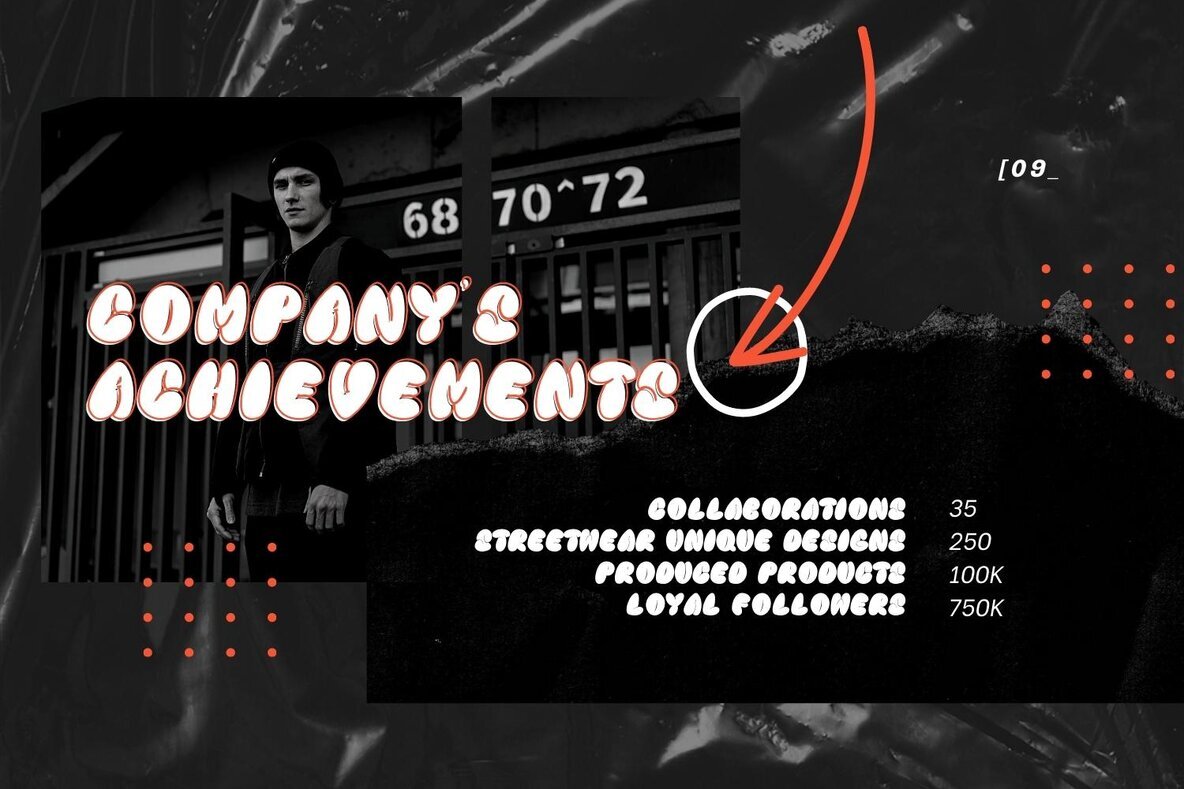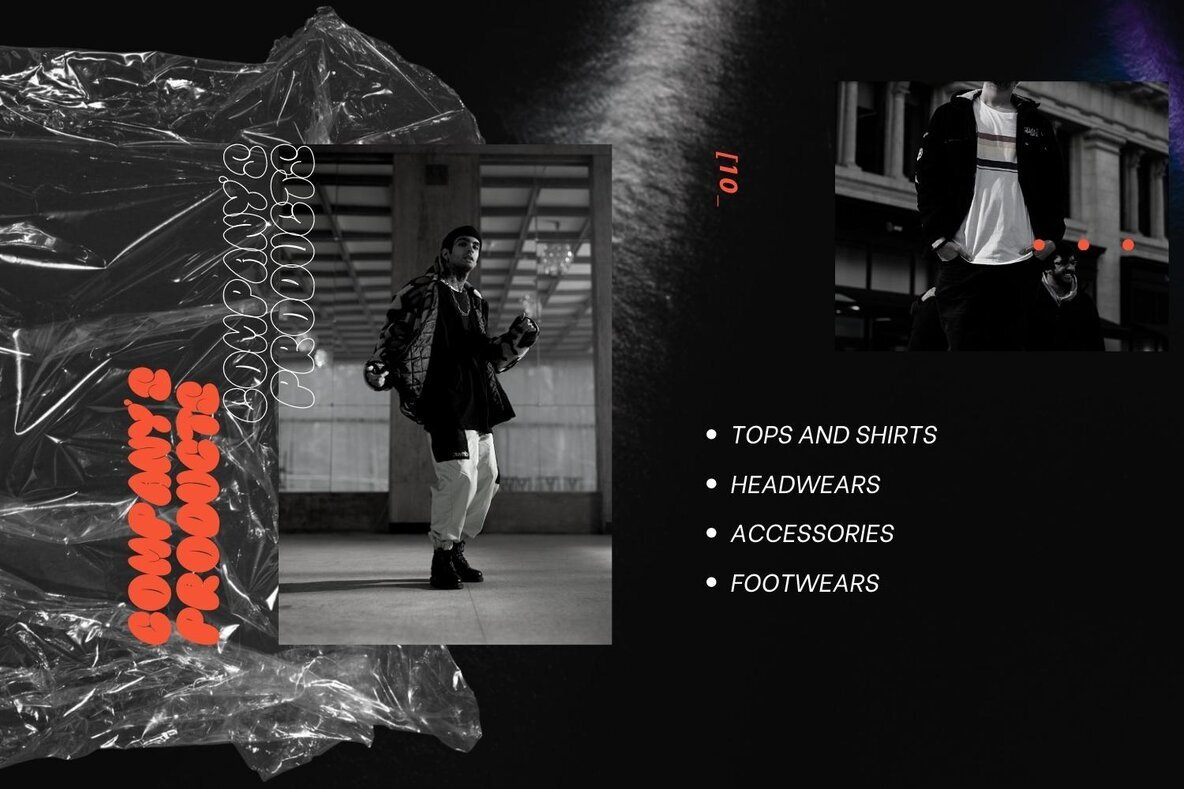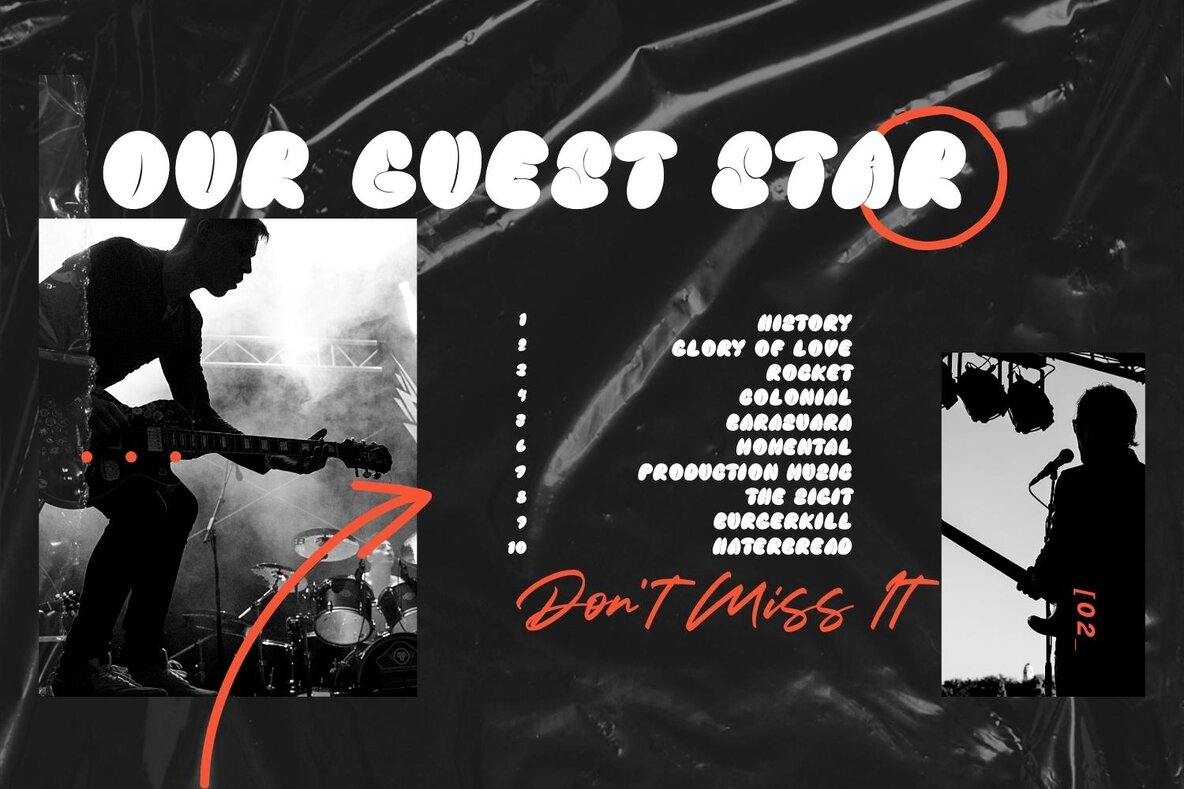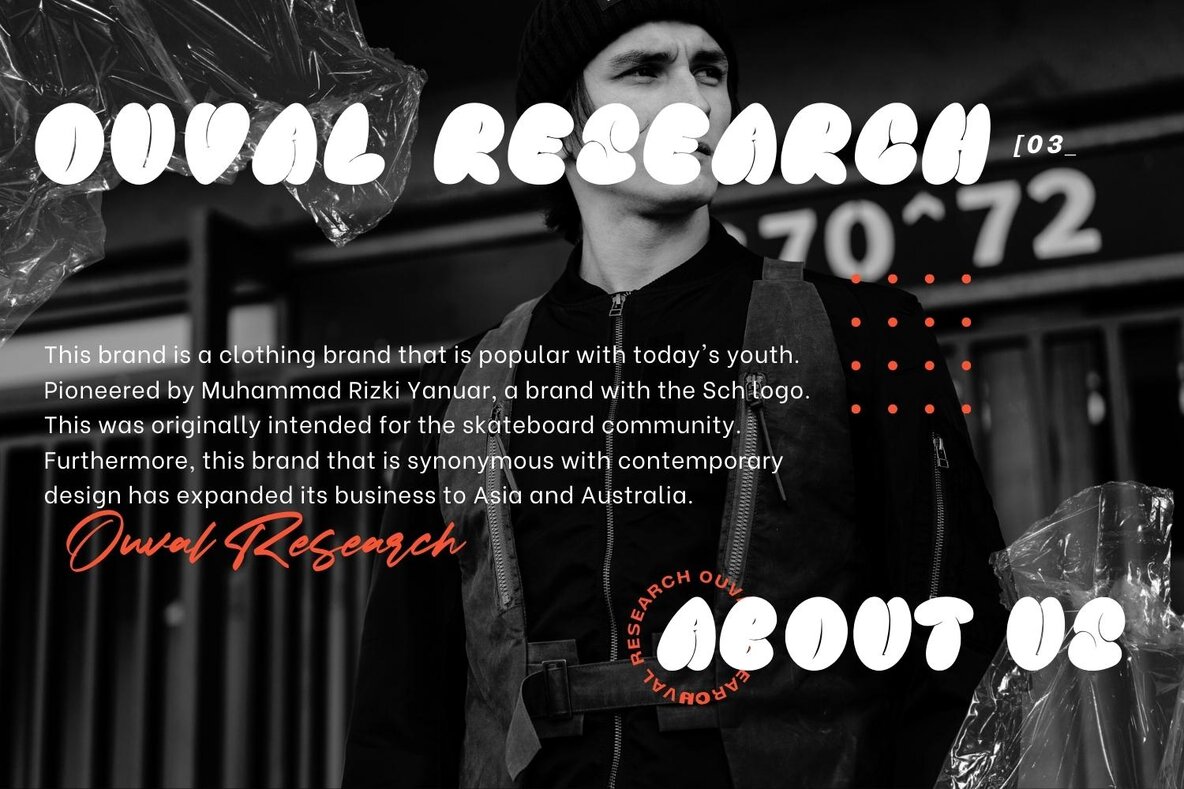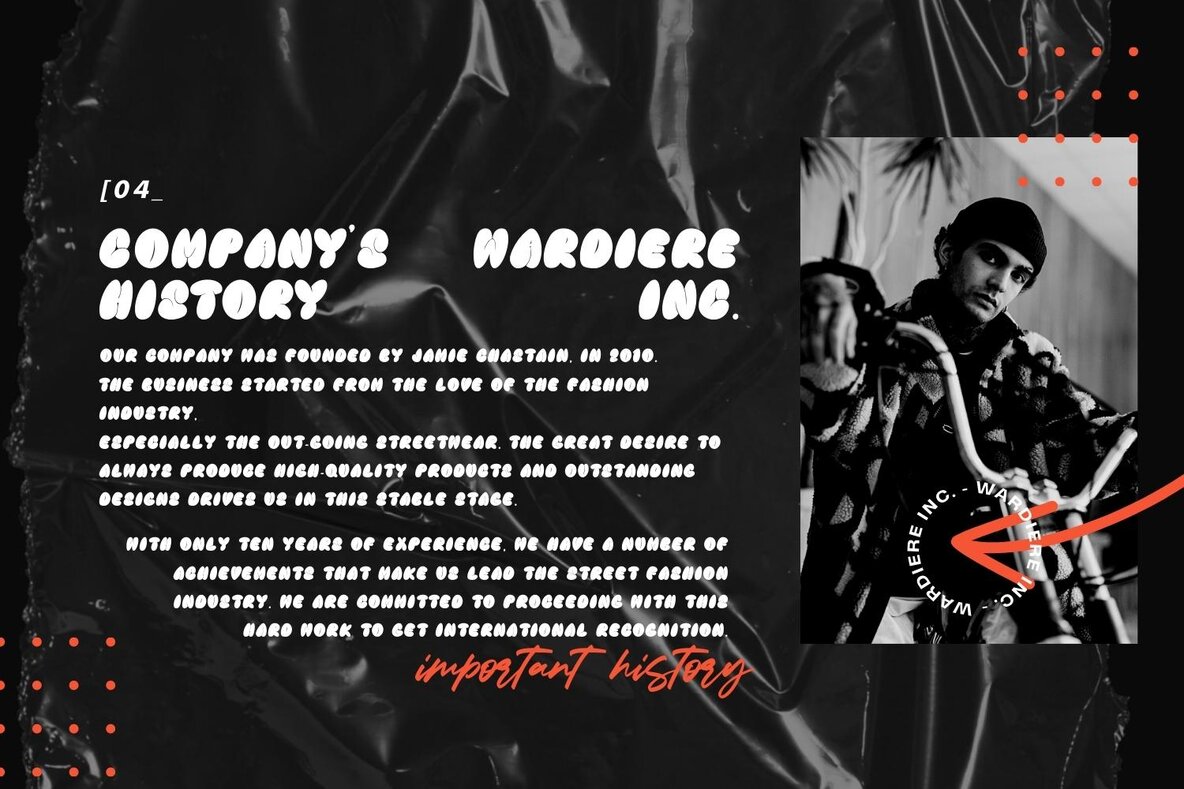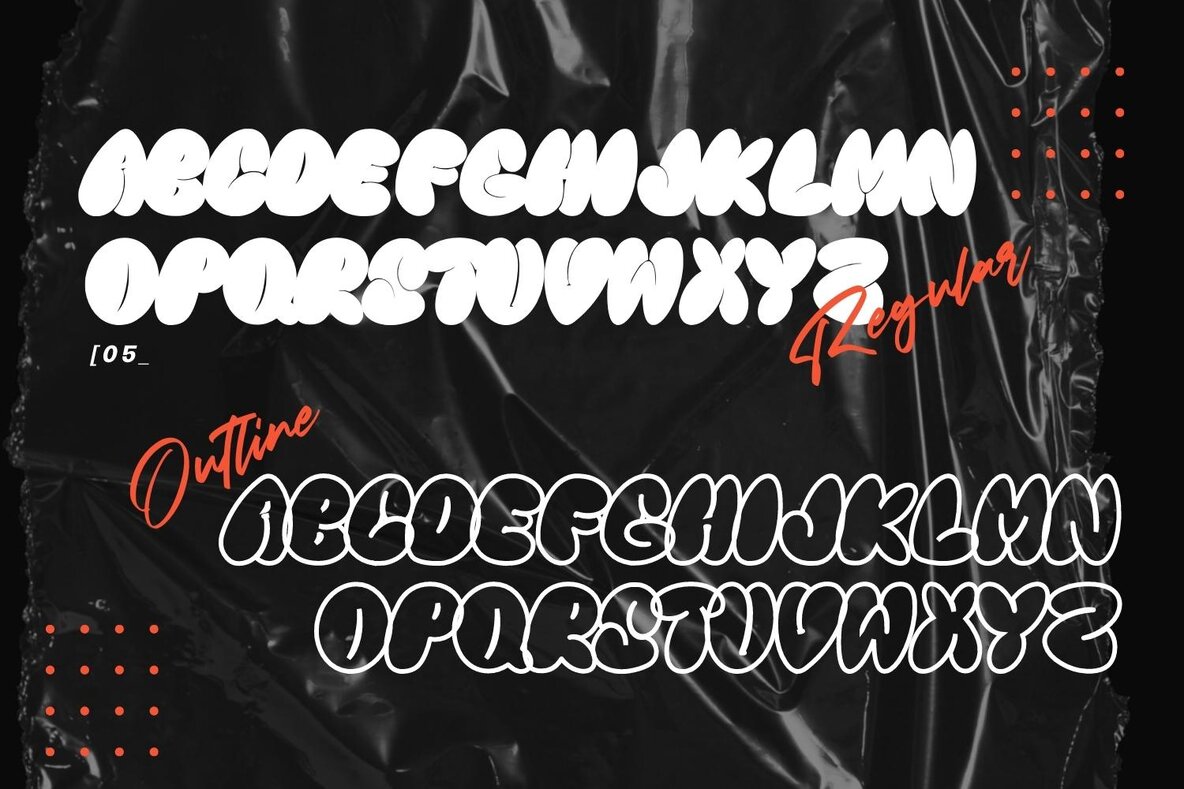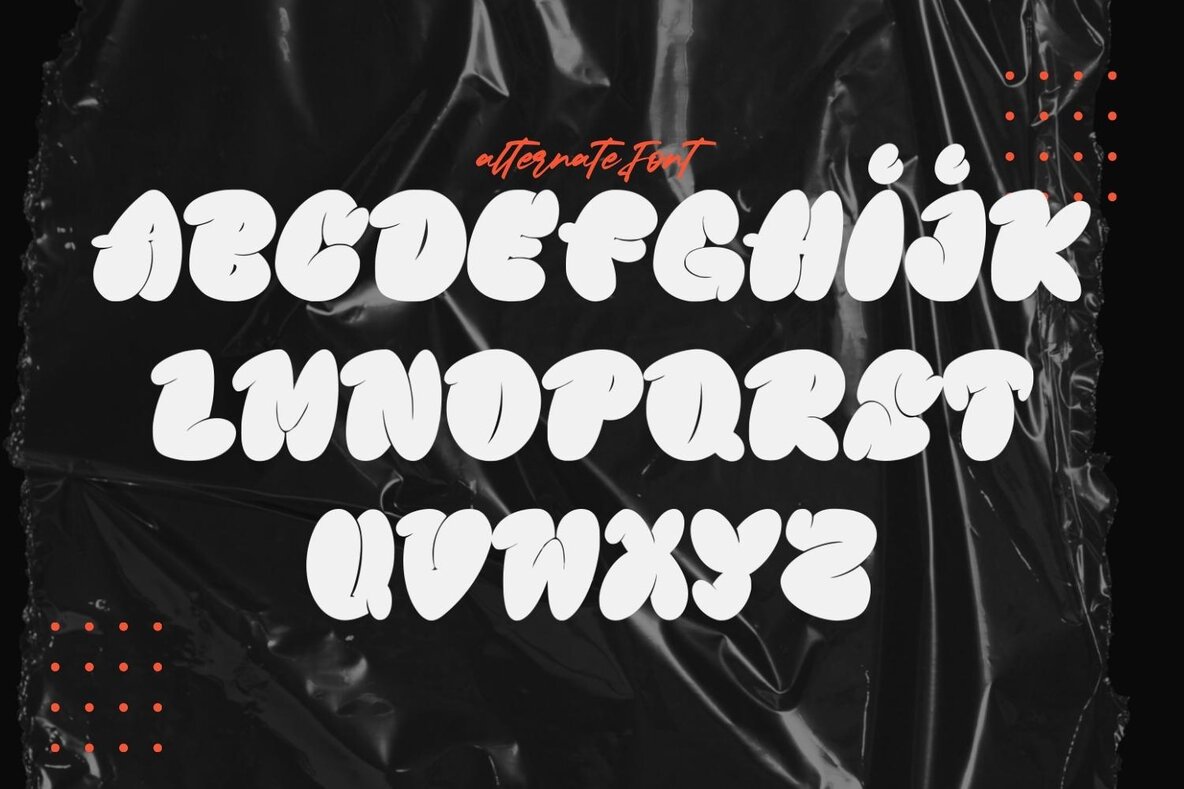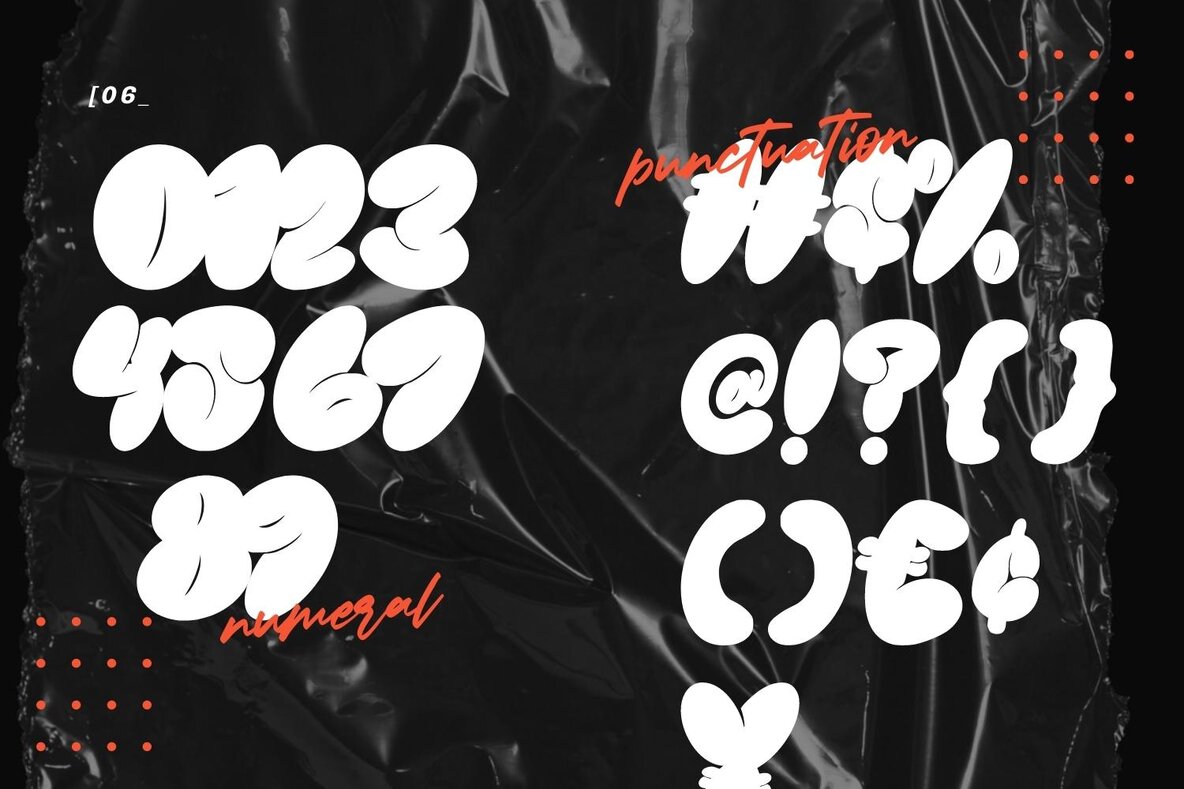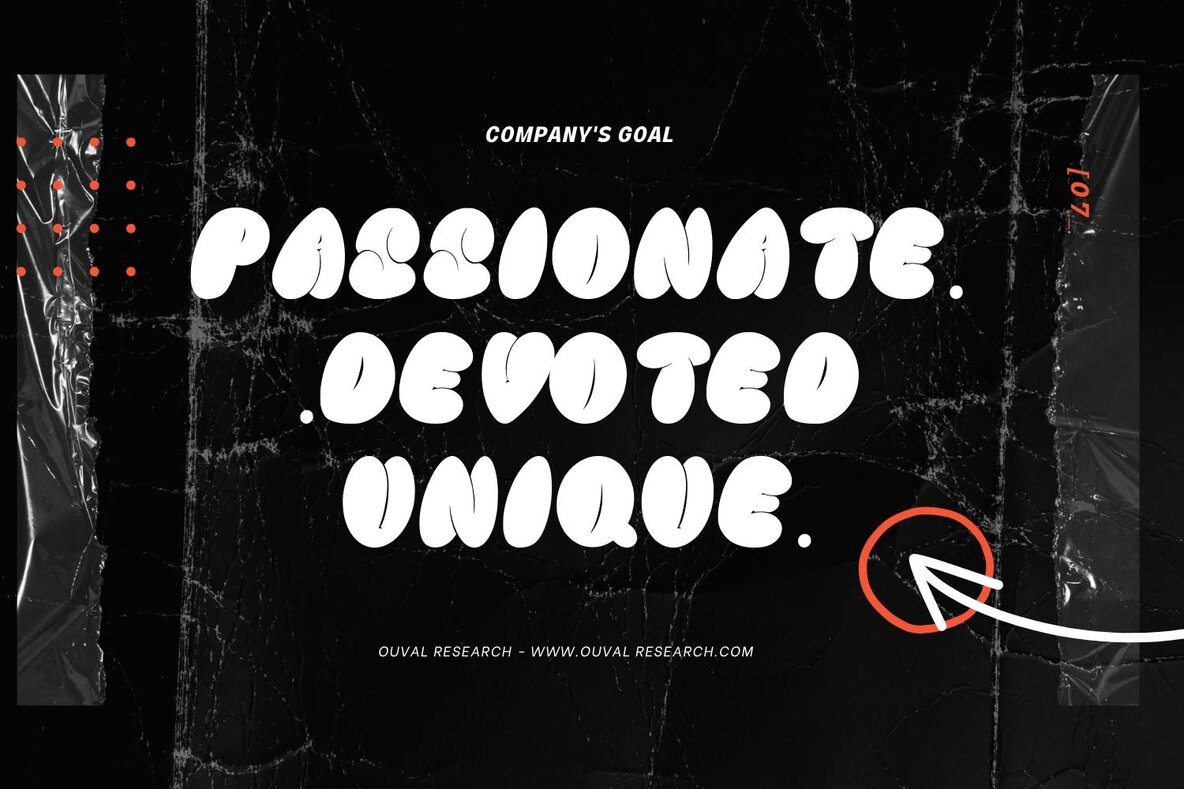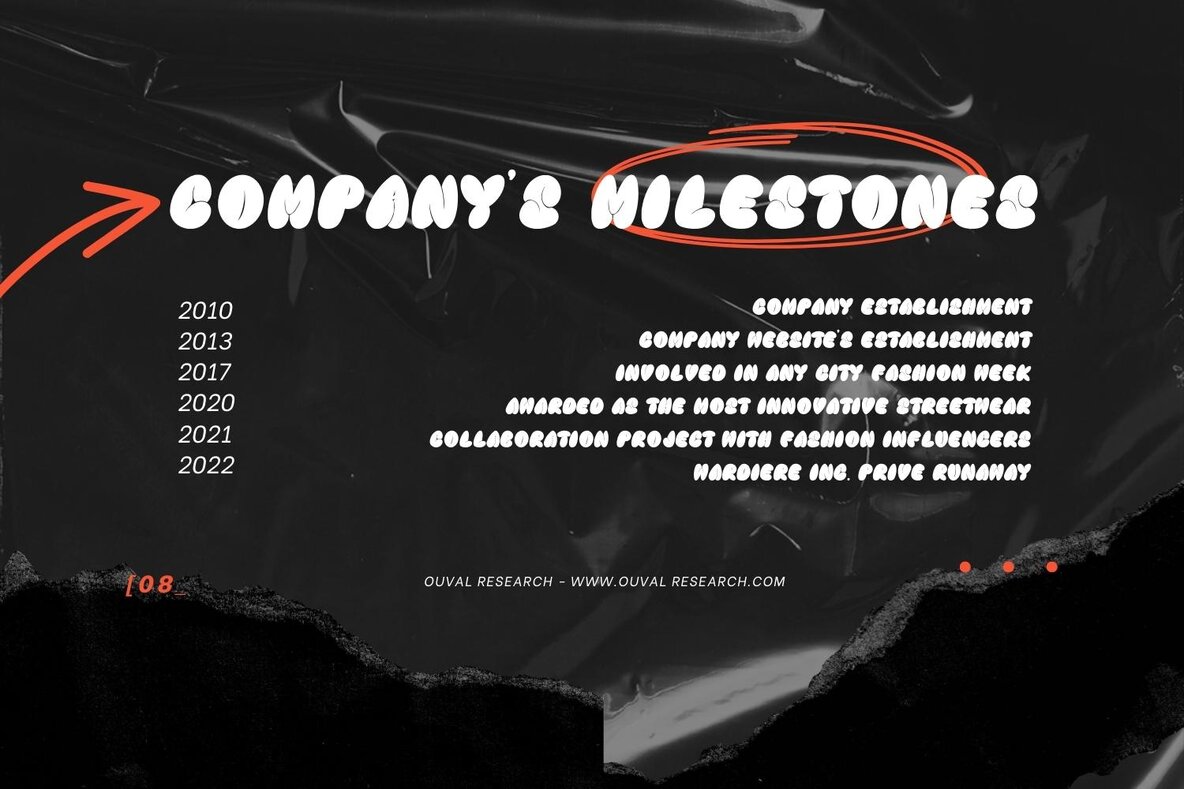
Big Vibe - Display Font are a delightful and whimsical style of typography characterized by rounded, bulbous letterforms that resemble bubbles. Here's a concise explanation of the features and functions of Bubble Fonts: Features: Functions: